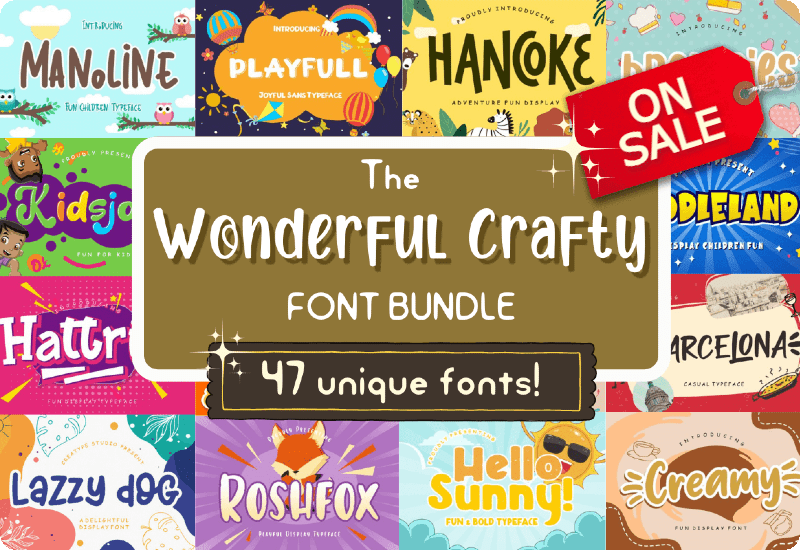
The Wonderful Crafty Bundle is a versatile collection of 47 playful fonts created by CreatypeStudio. Most of these fonts are PUA encoded, which means you can access all of the special characters with ease.
This bundle is perfect for adding charm to any project, whether it be decorating a tumbler, personalizing stationery, creating labels and tags, or designing book covers. With a variety of unique display fonts, this bundle has something for everyone.
Fonts included in this bundle:
- Hello Sunny Display Font
- Sticky Marker Script & Handwritten Font
- Hailyland Fuentes Display Font
- Helomate Display Font
- Hattrick Display Font
- Playfull Display Font
- Lemony Display Font
- Lazzy Dog Display Font
- Pumkins Halloween Display Font
- Komika Display Font
- Creamy Display Font
- Kinderland Display Font
- Hancoke Display Font
- Graffity Stylish Display Font
- Donuts Display Font
- Kidsjone Display Font
- Little Queen Display Font
- Manoline Display Font
- Summer Beach Display Font
- Hellobay Display Font
- Googlynes Display Font
- Grayson Script & Handwritten Font
- Yearbook Display Font
- Bollywod Display Font
- Searghy Display Font
- Doodleland Display Font
- Story Telling Sans Serif Font
- Beattle Display Font
- Hollidays Display Font
- Winter Soldier Display Font
- Barcelona Display Font
- Hai Allison Display Font
- Wigglye Display Font
- Fainland Script & Handwritten Font
- Kayooh Display Font
- Babyque Display Font
- Little Jack Display Font
- Hey Lucky! Display Font
- Bubblegum Display Font
- Brownies Display Font
- Roshfox Display Font
- Ghostily Display Font
- Kidstation Display Font
- Dalmaspot Display Font
- Mandaly Display Font
- Rowytta Display Font
- Kids Now Display Font
Here are a few examples of creative ways to use the fonts included in the Wonderful Crafty Bundle:
- Create a custom tumbler design: Use the “Summer Beach Display Font” to create a fun and playful design for a beach-themed tumbler. This font is perfect for creating designs that are both whimsical and beachy.
- Design a book cover: Use the “Hancoke Display Font” to create a bold and striking book cover design. This font is perfect for creating designs that are both modern and timeless.
- Personalize a piece of stationery: Use the “Helomate Display Font” to create a personalized piece of stationery, such as a thank-you card or a note card. This font is perfect for creating designs that are both elegant and playful.
- Create a fun and playful label: Use the “Dalmatian Display Font” to create a playful label for homemade jam or jelly. This font is perfect for creating designs that are both fun and whimsical.
- Create a custom poster: Use the “Googlynes Display Font” to create a custom poster for an event or concert. This font is perfect for creating designs that are both bold and playful.
- Personalize a kids room: Use the “Kinderland Display Font” to create a personalized wall art or sign for a child’s room. This font is perfect for creating designs that are both playful and charming.
- Design a fun and playful invitation: Use the “Bollywod Display Font” to create a fun and playful invitation for a birthday party or other event. This font is perfect for creating designs that are both playful and eye-catching.
These are just a few examples of how you can use the fonts included in the Wonderful Crafty Bundle. The possibilities are endless and the bundle is perfect for any designer looking to add a touch of charm and personality to their designs.